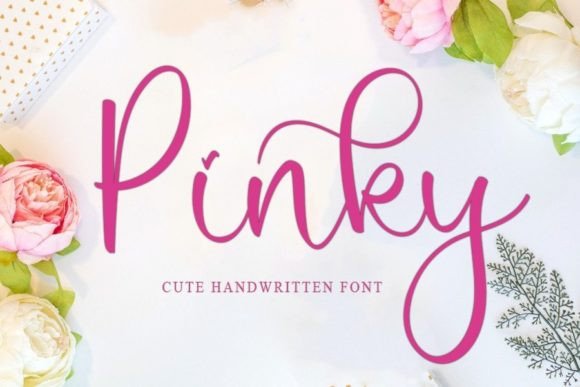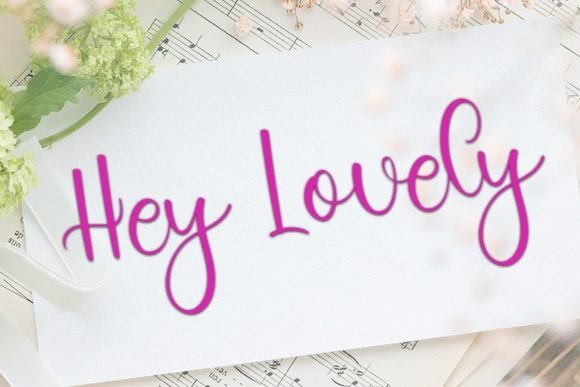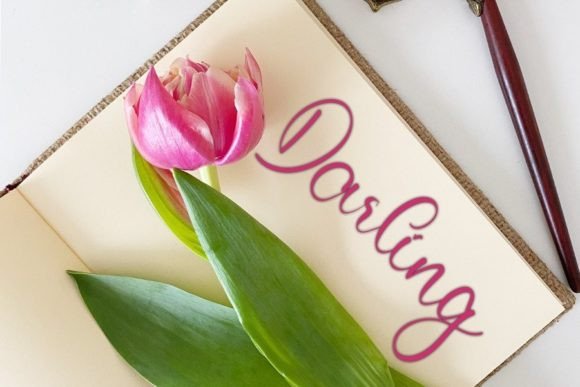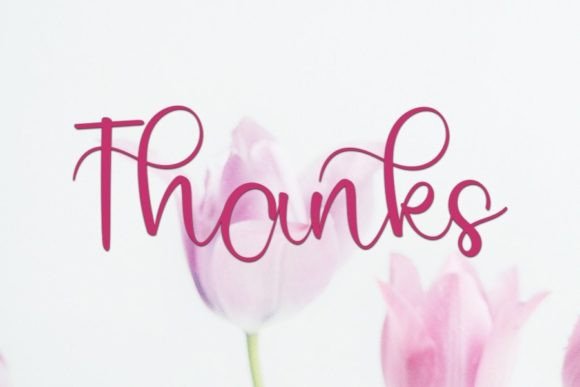
About Pinky Font
“Pinky” is a meticulously crafted handwritten font characterized by its neatness, beauty, and elegant touch. Its distinct and timeless style makes it a perfect choice for a wide range of creative projects. Incorporating “Pinky” into your designs allows you to infuse them with sophistication and charm.
With its clean lines and graceful letterforms, “Pinky” exudes an understated elegance that can enhance any design it graces. Whether you’re working on branding, invitations, social media graphics, quotes, packaging, or any other creative endeavor, this font adds a touch of refinement and class. Its versatility enables it to seamlessly blend with various design elements, making it a valuable asset for your favorite projects.
The font’s unique and timeless style ensures that your designs maintain their appeal over time. It stands as a testament to simplicity and grace, making it suitable for both formal and informal contexts. “Pinky” invites you to fall in love with its understated beauty, encouraging you to use it to create designs that are not only visually spectacular but also enduring.
Embrace the elegance and charm of “Pinky” in your creative ventures, and let its neat and beautiful handwritten style elevate your designs. Whether you’re designing a logo, crafting invitations, or curating inspirational quotes, this font allows you to create spectacular designs that leave a lasting impression. Enjoy the process of transforming your ideas into visually stunning masterpieces with the help of “Pinky.”